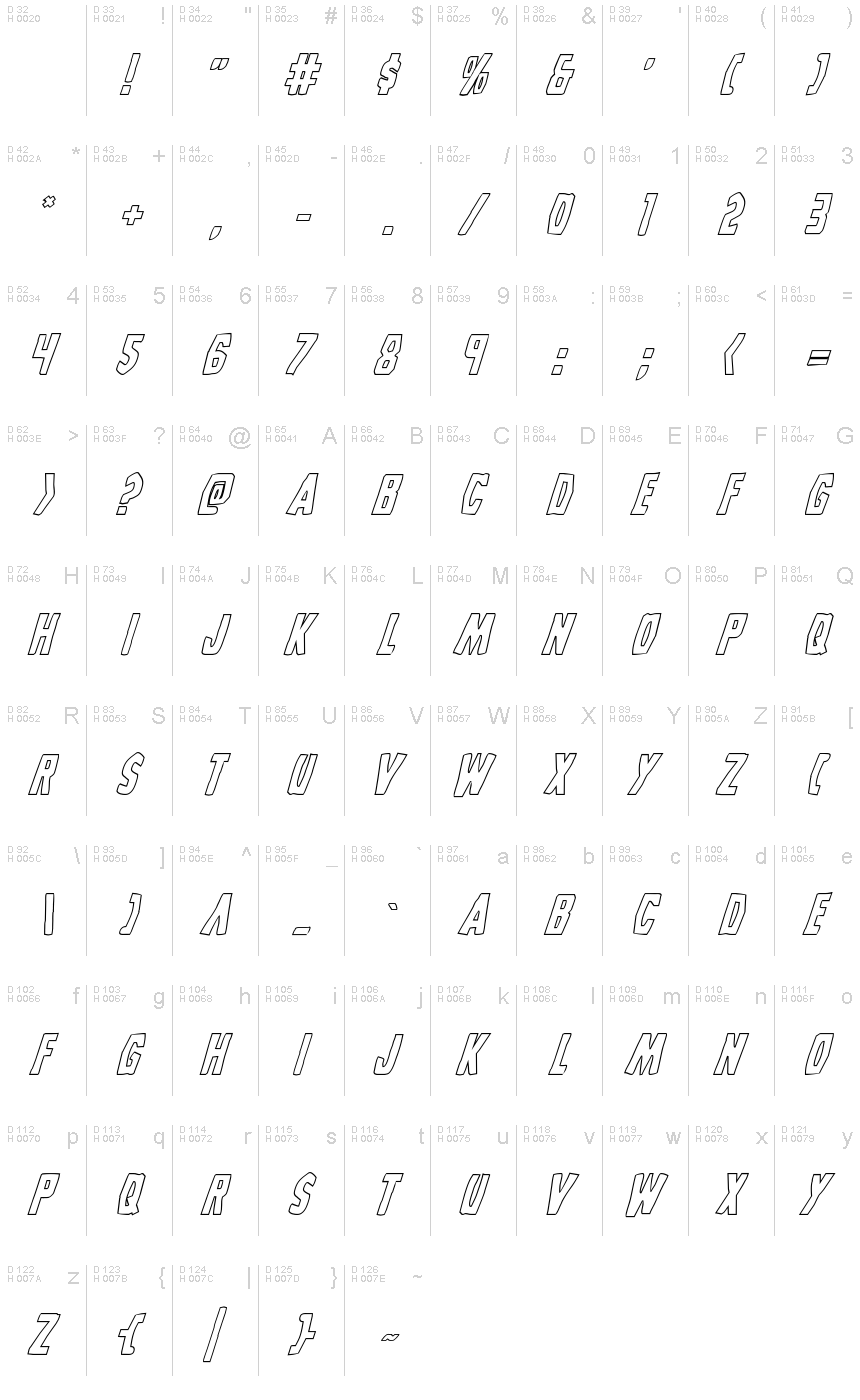
Grim Ghost Outline Italic, designed in 2024 by Iconian Fonts, is a free outlined cartoon display font with a forceful forward lean and rough comic lettering style. Tall caps have broad strokes, pinched joins, and lively, uneven angular contours.
Action sports and comic-book adventure are its clearest territory, making it useful for team merchandise, event posters, and game graphics with a loud arcade-era edge. On album covers and entertainment packaging, the hollow letters can echo inked character art, speed lines, and high-impact illustrations rather than behaving like neutral type.